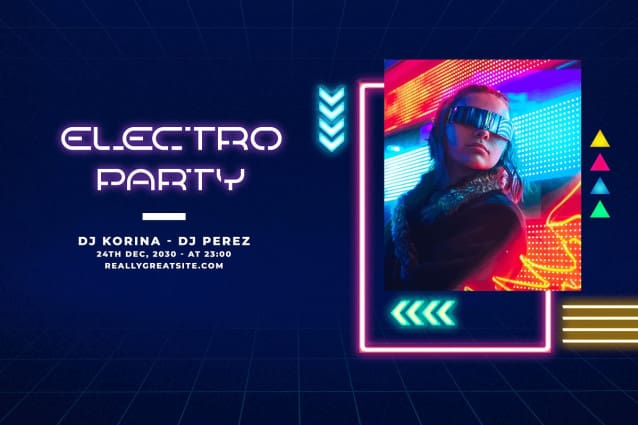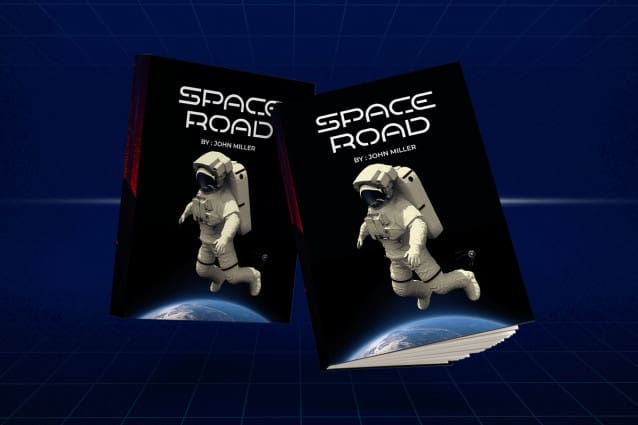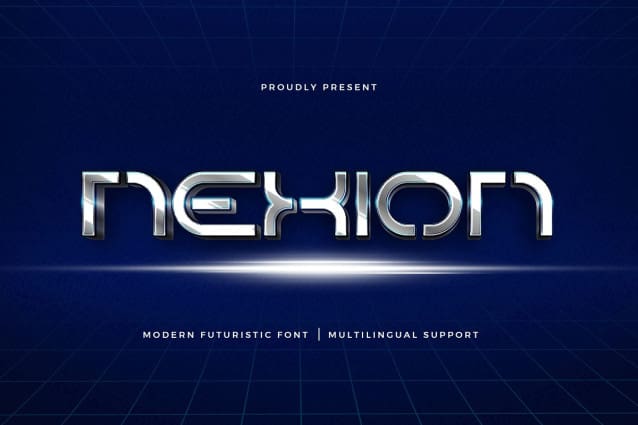
Nexion Futuristic Font
Nexion Futuristic Font is a sleek and innovative futuristic font designed to infuse your design projects with a sense of modernity and technological advancement. With its sharp lines and unique letterforms, it is perfect for sci-fi themes, tech branding, digital interfaces, and visionary advertising. This font captures the essence of the future, adding a cutting-edge and dynamic touch to your work.
Crafted with precision, Nexion Futuristic features distinctive characters that offer excellent readability and visual impact. Its bold and futuristic design makes it ideal for headlines and display text, providing a striking and memorable presence. The font’s versatility allows it to adapt seamlessly to various design contexts, from digital screens to printed materials, making it a valuable asset for any designer aiming to create futuristic and impactful visuals.
Elevate your design projects with Nexion Futuristic, a font that embodies the spirit of innovation and progress. Its unique style and adaptability make it an essential addition to any designer’s toolkit for crafting bold and forward-looking designs. Enhance your work with Nexion and experience the power of modern futuristic typography.